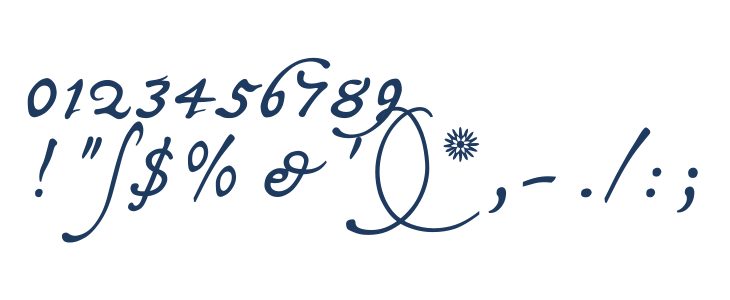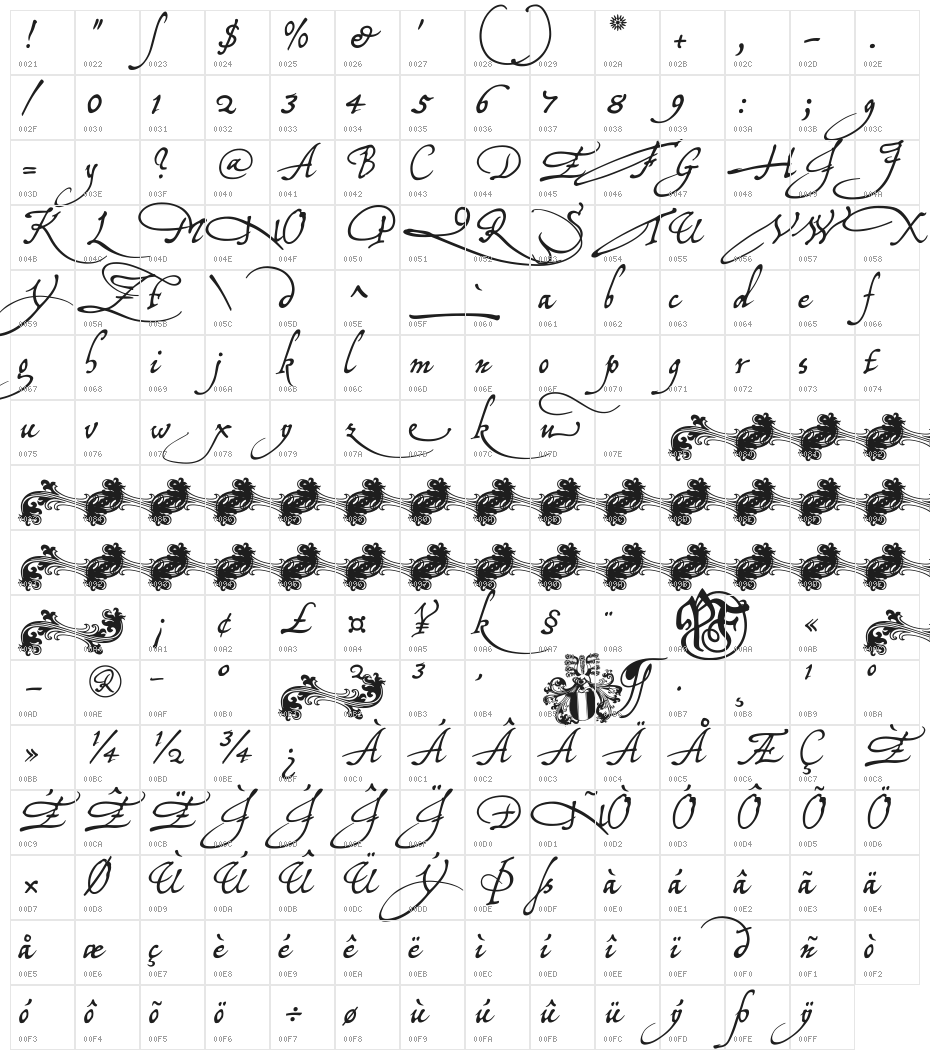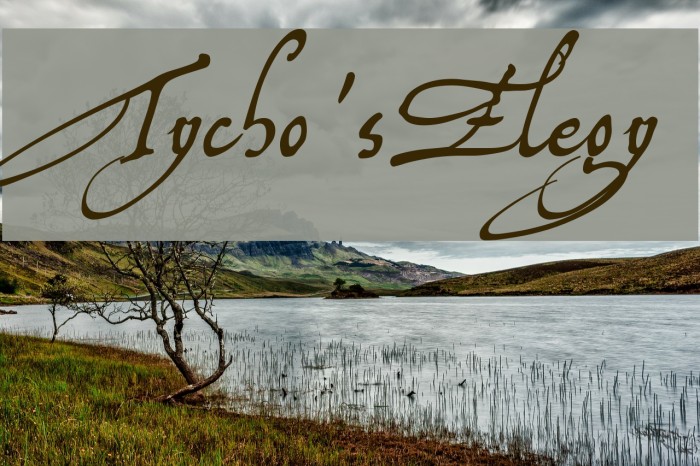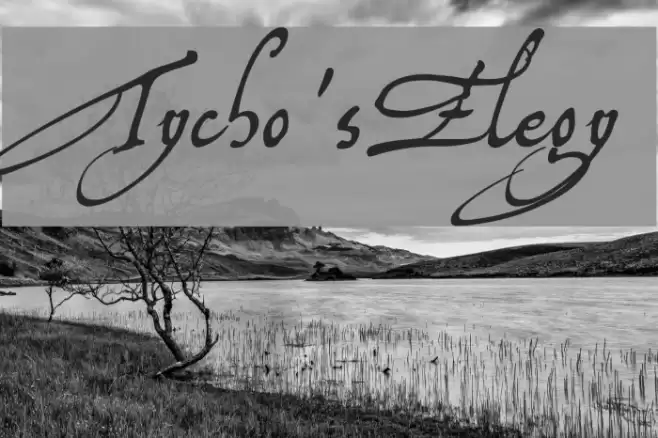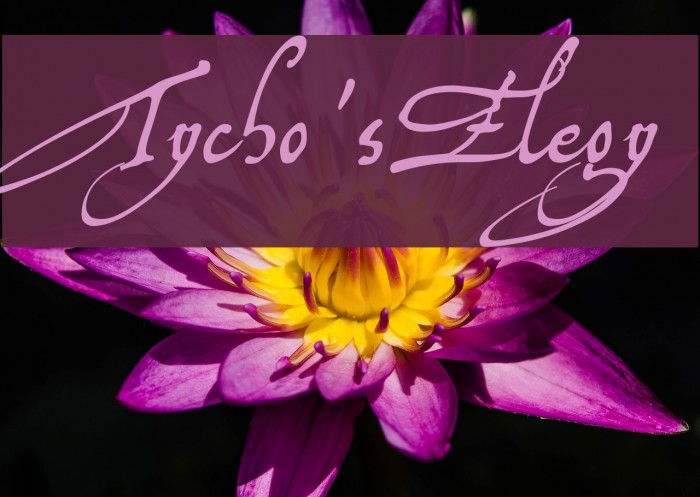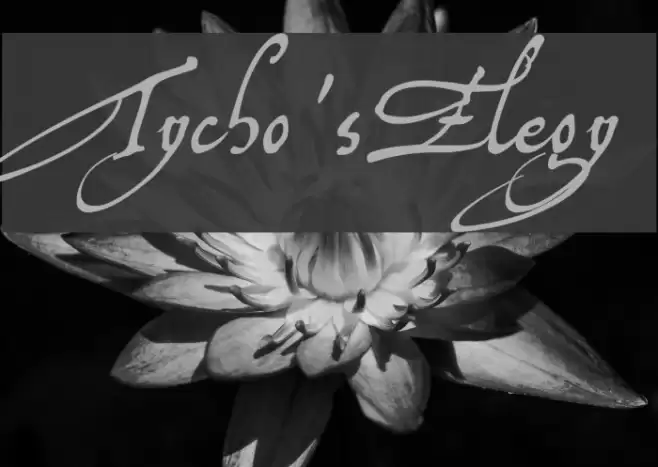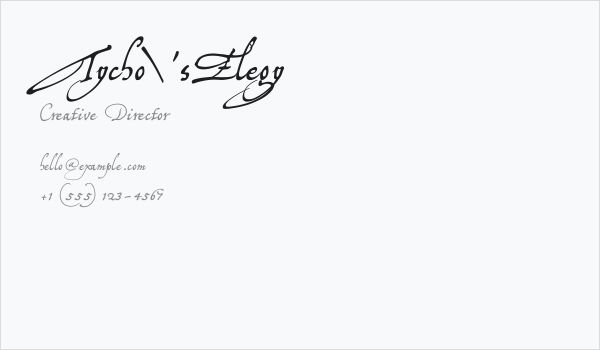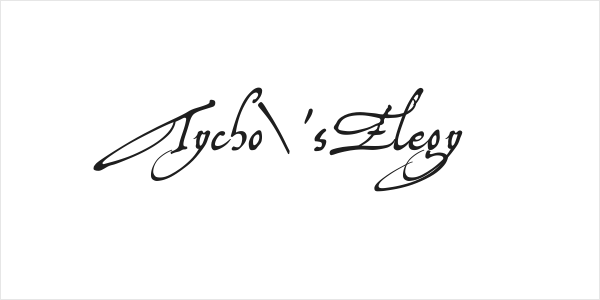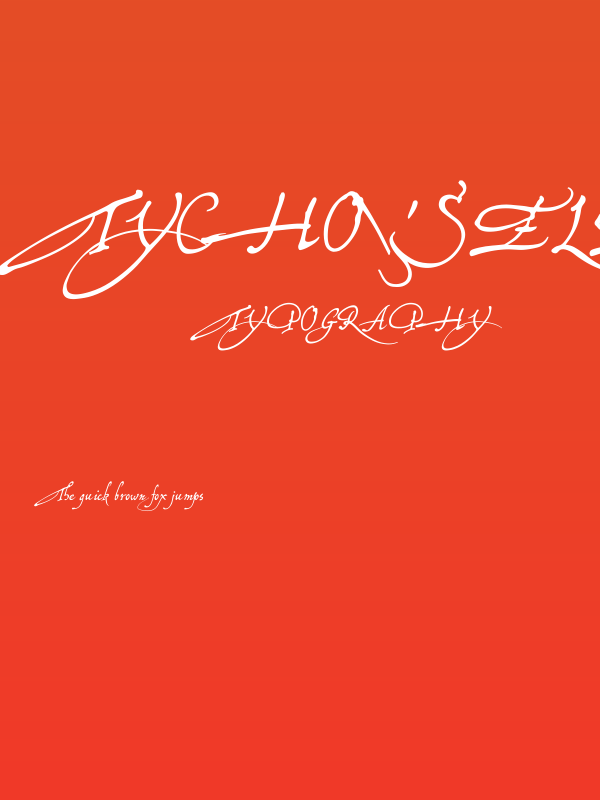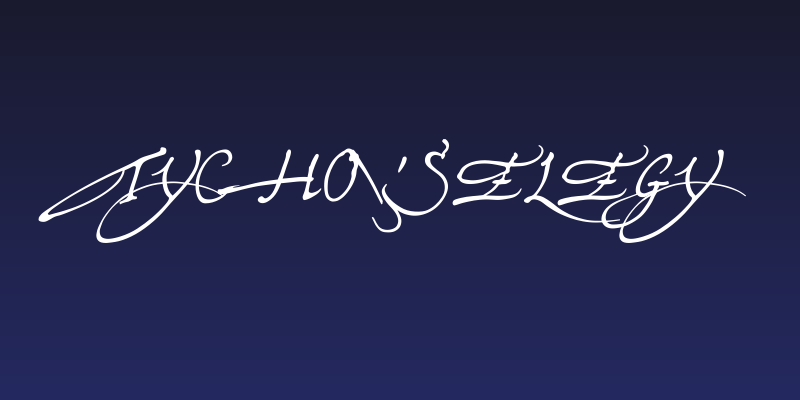
Tycho'sElegy Font
Tycho'sElegy Description
This font exudes elegance and sophistication with its flowing, cursive style. The uppercase letters are adorned with intricate flourishes, giving them a sense of grandeur and movement. The lowercase letters maintain a consistent fluidity, with some characters featuring unique loops and swashes that add to the overall decorative appeal. The numerals are bold and slightly italicized, complementing the script style of the alphabet. Special characters are thoughtfully designed, maintaining the font's cohesive aesthetic. This font is perfect for projects that require a touch of class and artistic flair.